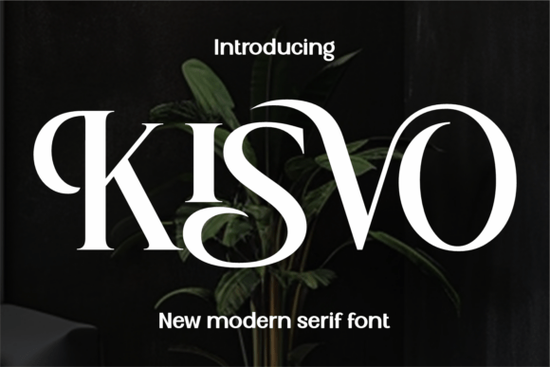
Looking for a font that combines elegance with modern flair? The Kisvo Font is a standout choice for designers and creators who want to add a touch of sophistication to their work. Whether you're designing for weddings, logos, or fashion, this serif font offers a refined look that feels both timeless and contemporary. Its minimalist approach makes it versatile, while its luxurious style ensures it stands out in any project.
The Kisvo Font is ideal for those who appreciate the balance between classic typography and modern design trends. It brings a feminine and chic aesthetic to any text, making it perfect for high-end branding, social media posts, or print materials. The font’s cursive script adds a personal, hand-lettered feel, while its structured form ensures readability and professionalism. This combination makes it a go-to option for a wide range of creative applications.
What Makes Kisvo Font Unique?
One of the key features of the Kisvo Font is its stylistic alternates, which give designers more flexibility when creating unique and personalized designs. These variations allow for greater creativity without sacrificing the font’s overall consistency. The font also blends the elegance of calligraphy with the strength of a logo font, making it suitable for both decorative and functional use.
For those who enjoy working with vintage-style fonts, the Kisvo Font offers a nostalgic yet modern twist. Its retro appeal is balanced by a clean, contemporary structure, making it adaptable to various design styles. Whether you're aiming for a vintage look or a sleek, modern aesthetic, this font can help you achieve your vision.
Best Uses for Kisvo Font
The Kisvo Font shines in a variety of design contexts. It’s particularly well-suited for wedding invitations, where its elegant curves and refined style can elevate the overall look. For businesses, it works well as a logo font, adding a sense of luxury and professionalism. In the world of fashion and beauty, it can be used to create eye-catching labels, packaging, or social media content.
Print-on-demand sellers will find the Kisvo Font useful for creating custom designs that stand out. Its versatility allows it to be used across different mediums, from t-shirts and mugs to posters and banners. For small businesses, this font can help create a strong brand identity that feels both stylish and approachable.
How to Get the Most Out of Kisvo Font
To make the most of the Kisvo Font, consider experimenting with different sizes and placements. Larger text can emphasize key messages, while smaller sizes can add subtle detail to backgrounds or headings. Pairing it with other fonts can also help create visual contrast and keep your designs from feeling too repetitive.
When using the Kisvo Font, it’s important to maintain clarity and readability. While its cursive style adds charm, it should never compromise the legibility of your message. Testing the font in different formats such as digital screens, printed materials, or social media posts can help ensure it looks great in all situations.
Whether you’re a designer, crafter, or small business owner, the Kisvo Font is a valuable addition to your toolkit. Its blend of elegance, versatility, and modern appeal makes it a practical choice for a variety of projects. Try it out and see how it can bring a new level of style to your work.